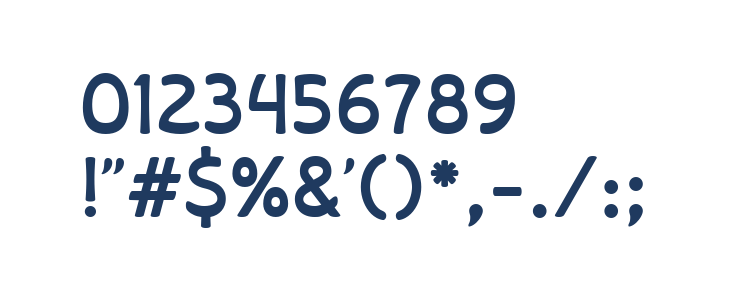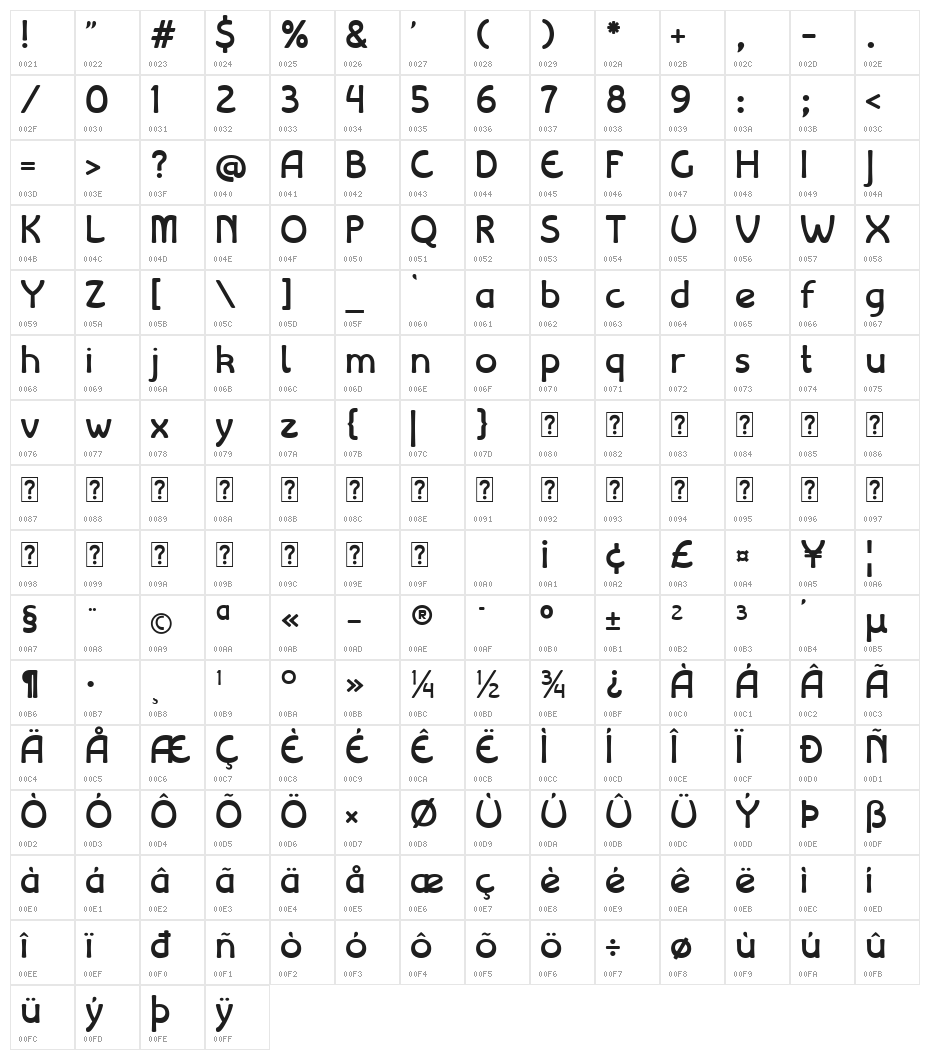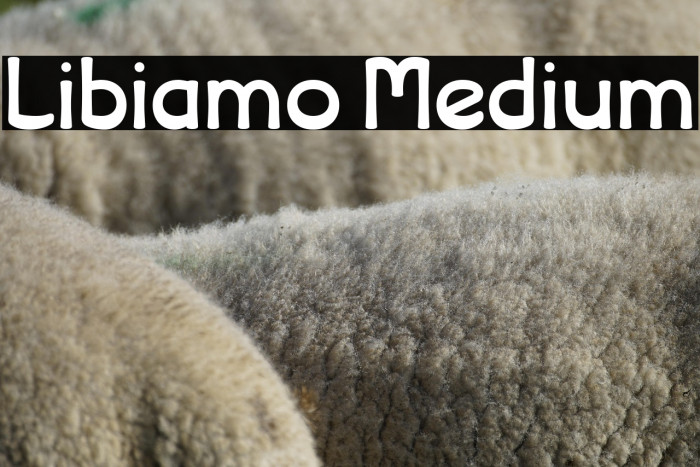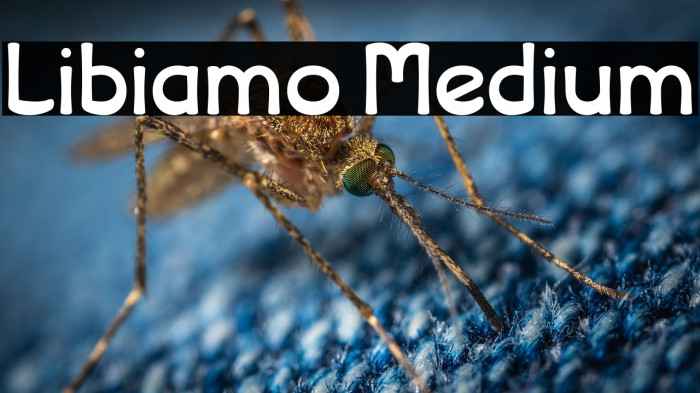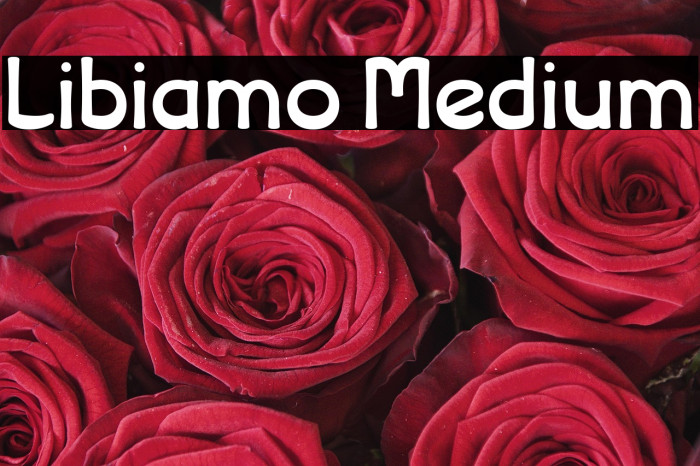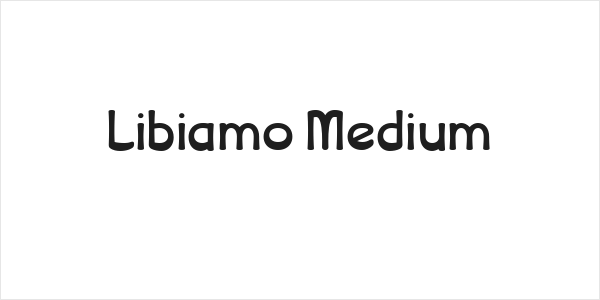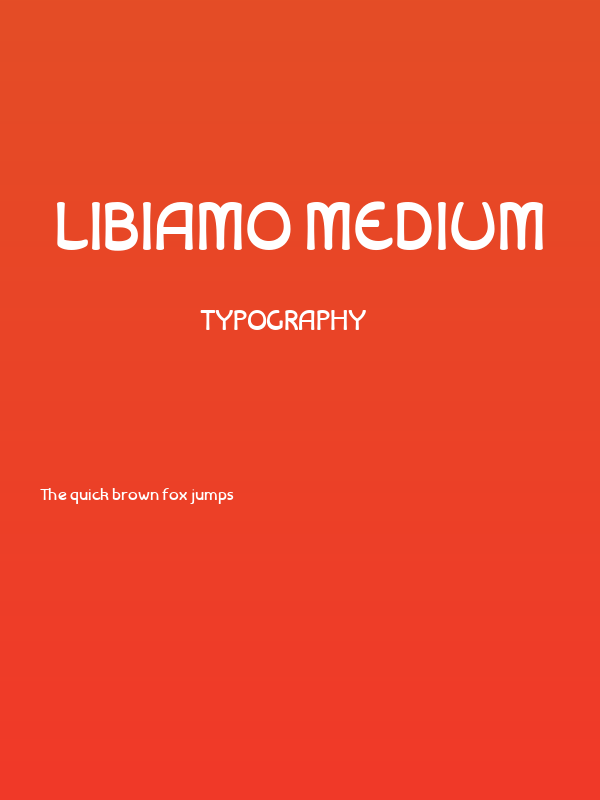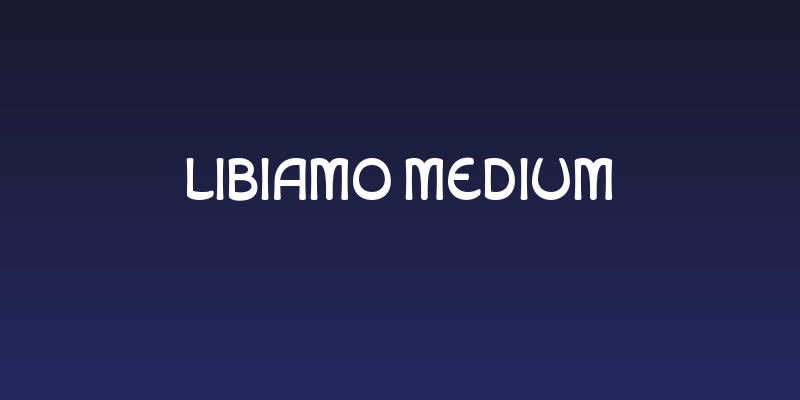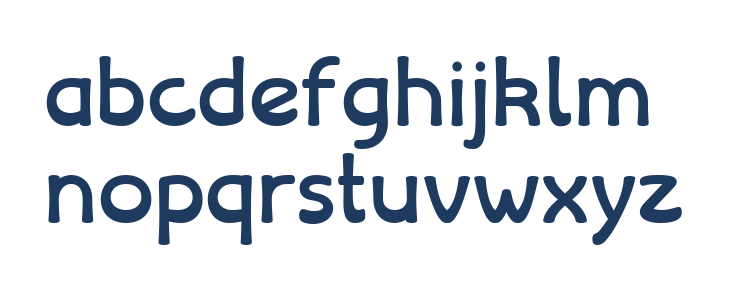
Libiamo Medium Font
Libiamo Medium Description
This font features a playful and rounded design, characterized by its smooth curves and friendly appearance. The letters are evenly spaced, with a consistent stroke width that gives it a balanced look. The uppercase and lowercase letters maintain a uniform style, enhancing readability. The numerals are bold and clear, making them stand out effectively. Special characters are well-integrated, maintaining the overall aesthetic of the font. This typeface is versatile, suitable for both digital and print media, and can add a touch of warmth and approachability to any project.
| Proposed Projects | Ideal for children's books, playful branding, casual invitations, and friendly website headers. |